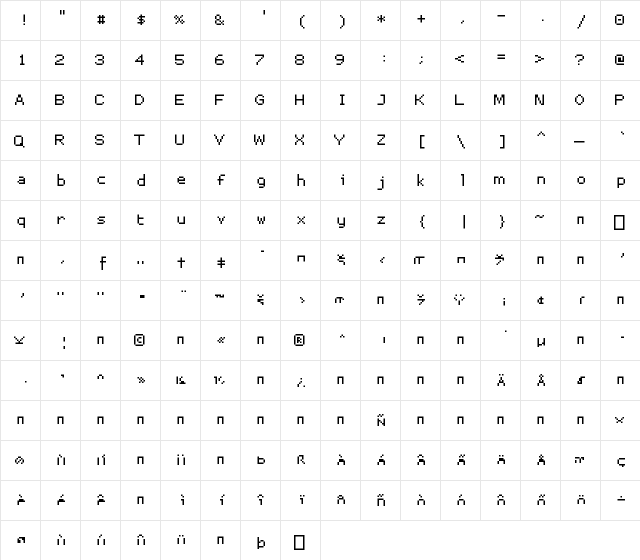
ProggySmallTT Regular
ProggySmallTT offers clean, dependable letterforms without strong stylistic allegiance, making it a practical choice for designers who need flexibility.